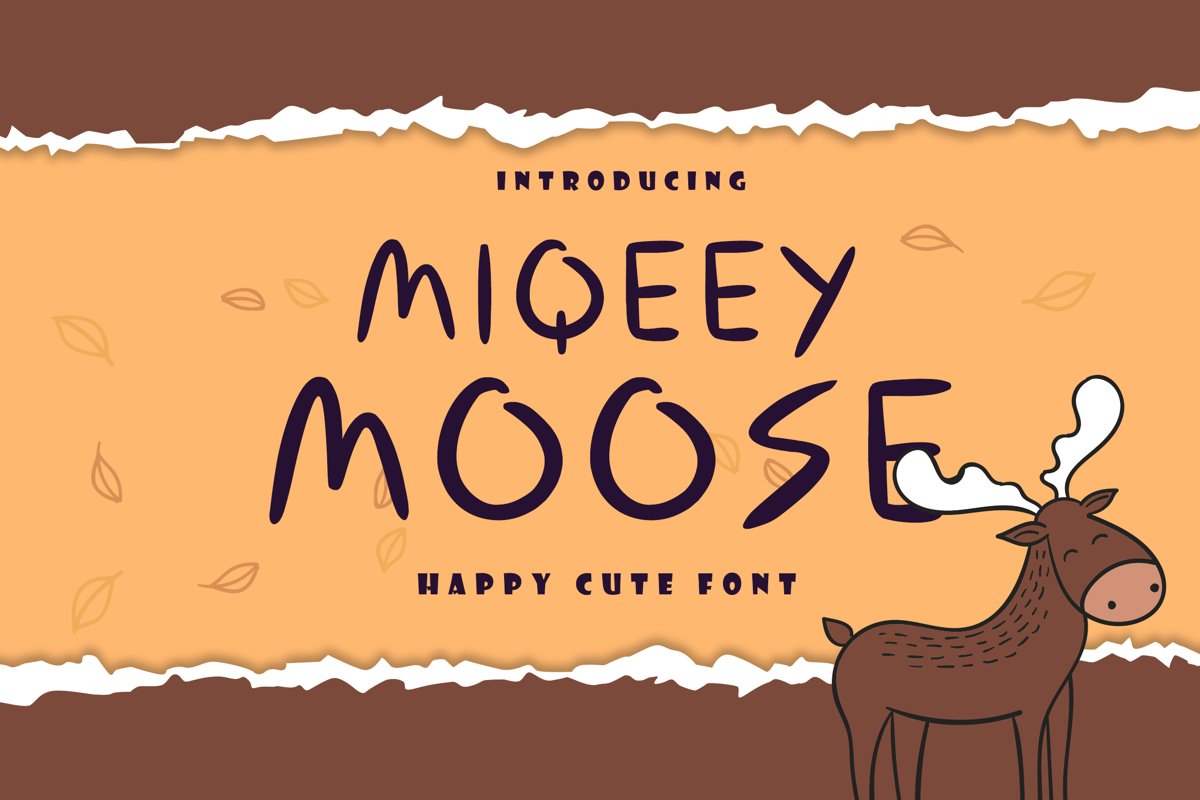
Miqeey Moose Happy Cute Font
Miqeey Moose
MIQEEY MOOSE is a Happy Cute Font. It is a handwritten with a touch and feel of kids which is share the JOYFUL and CHEERFUL. This font is suitable to be used for advertisement, billboard or even social media campaign to bring the attract niche market. Don't forget, if you are a publisher or book editor, this font is good to enhance the feel on you KIDS or PICTURE BOOK project.
- And of course the taste of Joy